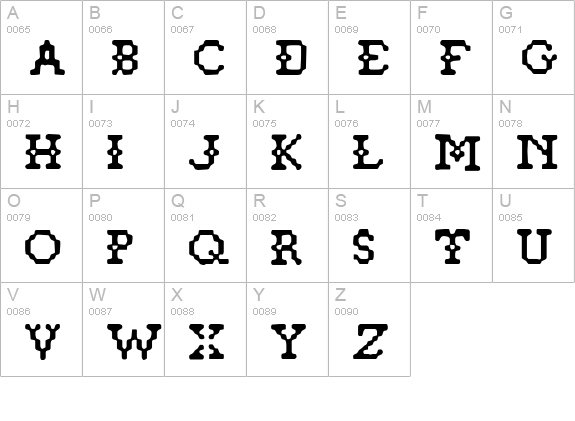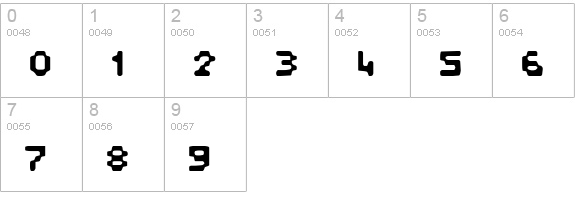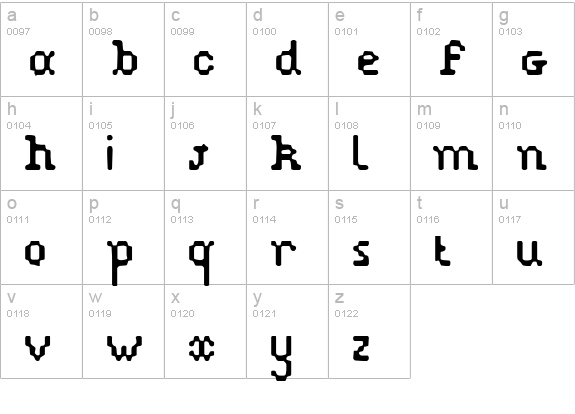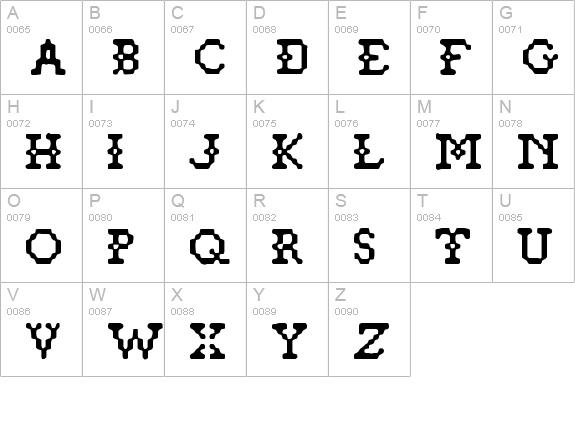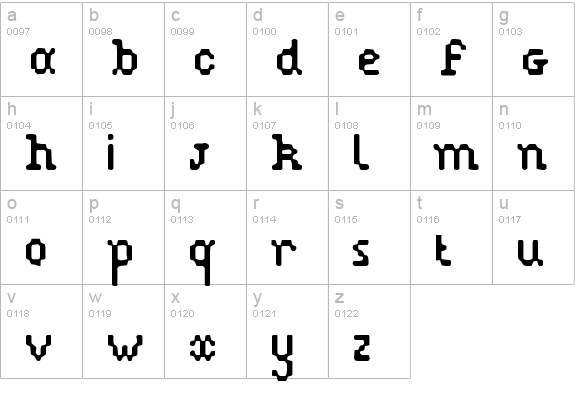
Pixelstitch Font Details
Pixelstitch font is a unique and stylish typeface that combines the aesthetic of pixelated design with the art of cross-stitching. Its meticulously crafted characters give off a modern yet nostalgic vibe, making it perfect for various design projects such as digital art, gaming graphics, and website headers. What sets Pixelstitch font apart is its intricate detailing and charming appeal that can add a touch of creativity to any project. Each letter has been carefully designed to resemble a pixelated cross-stitch pattern, creating a visually striking effect that is sure to catch the eye. Best of all, Pixelstitch font is completely free to download at FontsMarket.com, allowing you to easily incorporate this one-of-a-kind typeface into your designs without any cost. Don't miss out on the opportunity to enhance your projects with the unique charm of Pixelstitch font today!